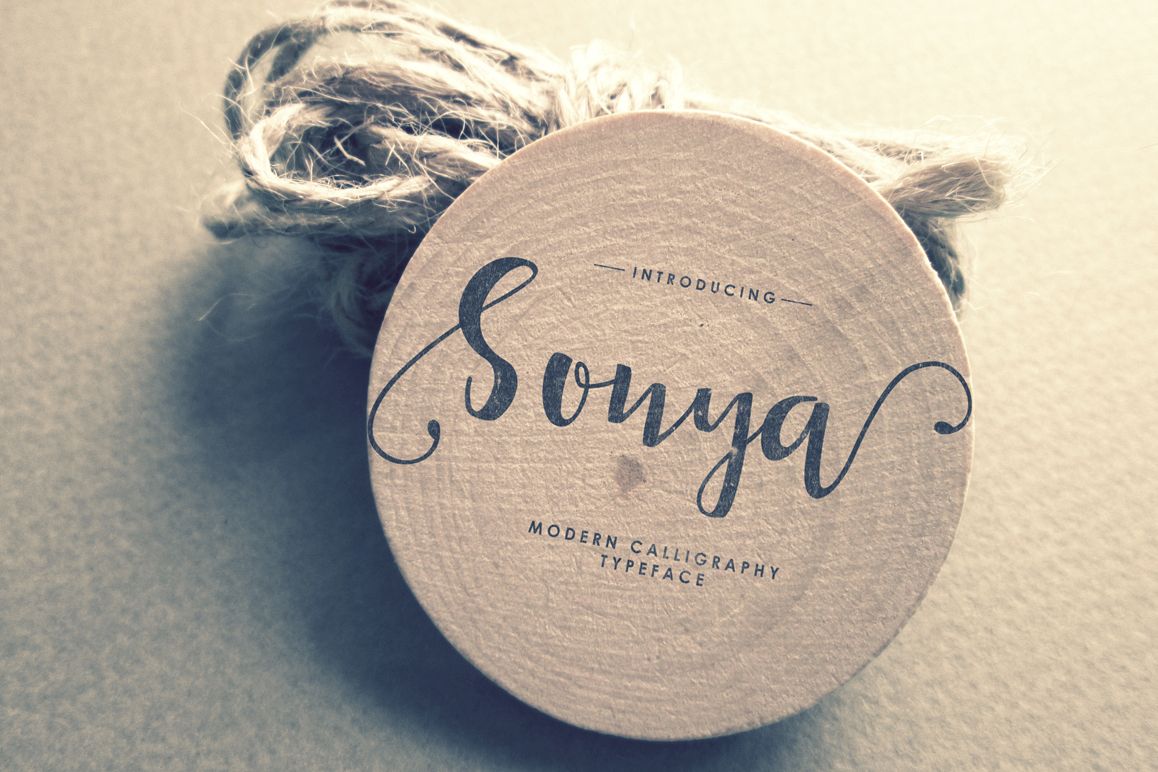
Sonya Script
This is my second font script. It called Sonya, its created with lovely and smoothly character. This beauty font was PUA encoded. so, don't wait to long... Grab it fast... :DSonya is a modern calligraphy typeface that comes with dancing up and down baseline. This beautiful fonts works properly and perfectly for logos, wedding invitation card, stationary, packaging, clothing, flyer, apparel, magazines, brochures, headings, signature, lable, news, posters, badges, etc.Sonya features 304 glyphs and 57 alternate characters contain with opentype features. Stylistic Alternates, Standard Ligature and more.You can access all those alternate characters by using OpenType savvy programs such as Adobe Illustrator, Adobe InDesign and CorelDraw X6-X7, Microsoft Word 2010 or later versions. There are additional ways to access alternates/swashes, using Character Map (Windows), Nexus Font (Windows), Font Book (Mac) or a software program such as PopChar (for Windows and Mac). For other programs that doesn't support OpenType features or Glyphs Panel such as Photoshop, you can use Character Map in Windows to access the alternate characters.Files included:Sonya (otf, ttf) Web Font (eot, svg, woff, woff2) How to access all alternative characters, using Windows Character Map with Photoshop: http://youtu.be/cxonI5QvULkHow to access all alternative characters using Adobe Illustrator: https://www.youtube.com/watch?v=y5XTaWYwWA4"Thank you for your purchase!